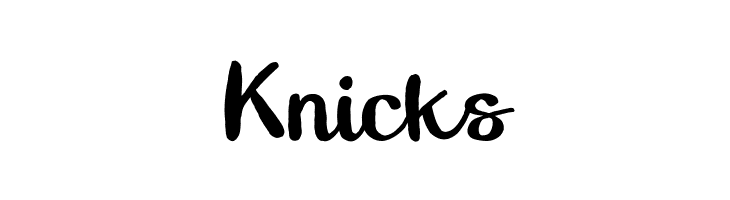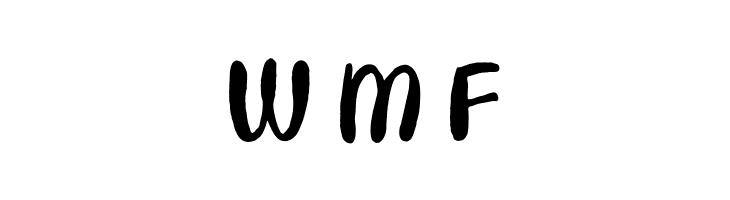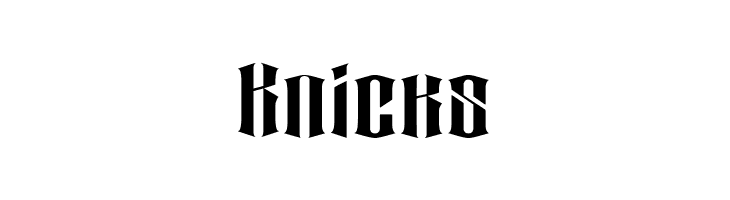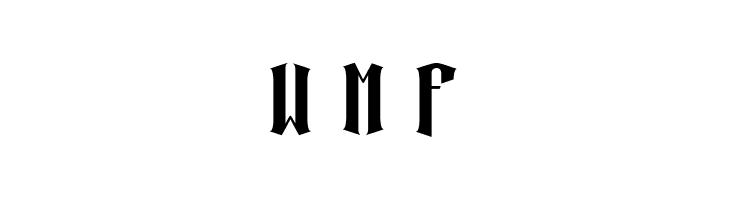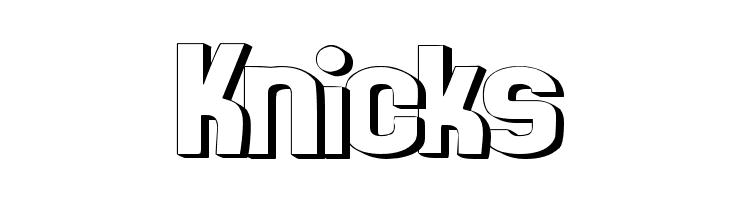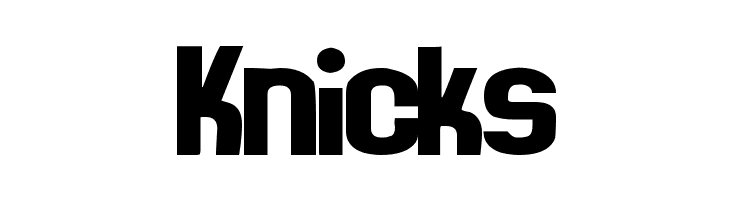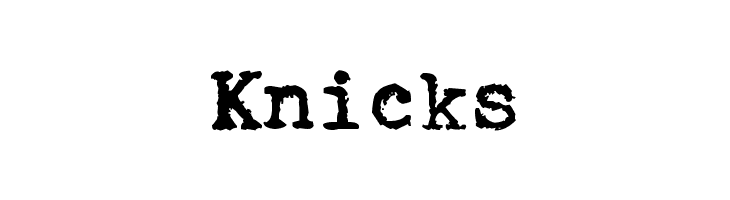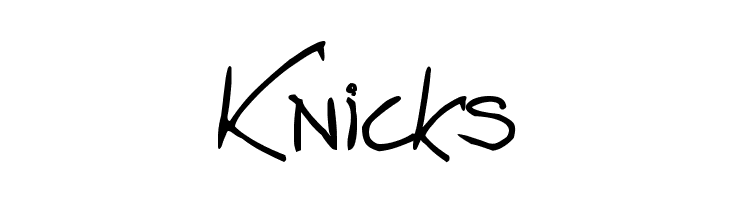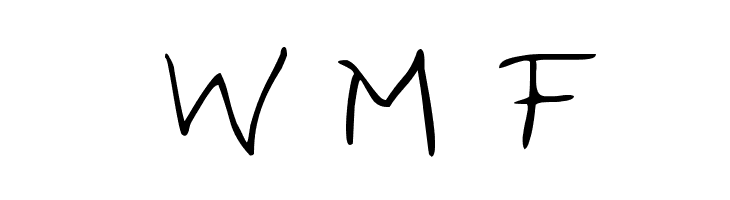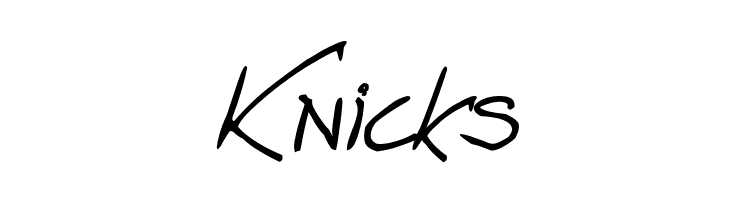
A bold, dramatic Blackletter-style font with high contrast and intricate details.
A playful, hand-drawn font with a graffiti-like, informal style.
A playful, handwritten italic font with a dynamic and casual style.
A vintage typewriter-style font with a textured, distressed look.
A bold, rounded typewriter-style font with a modern twist.
A bold, italicized font with a dynamic and expressive style.
A bold, 3D-effect font with a vintage cinema poster style.
A bold, geometric font with a strong, blocky appearance.
A bold, playful script font with a handwritten style and high contrast.
A futuristic and geometric font with bold, abstract characters.